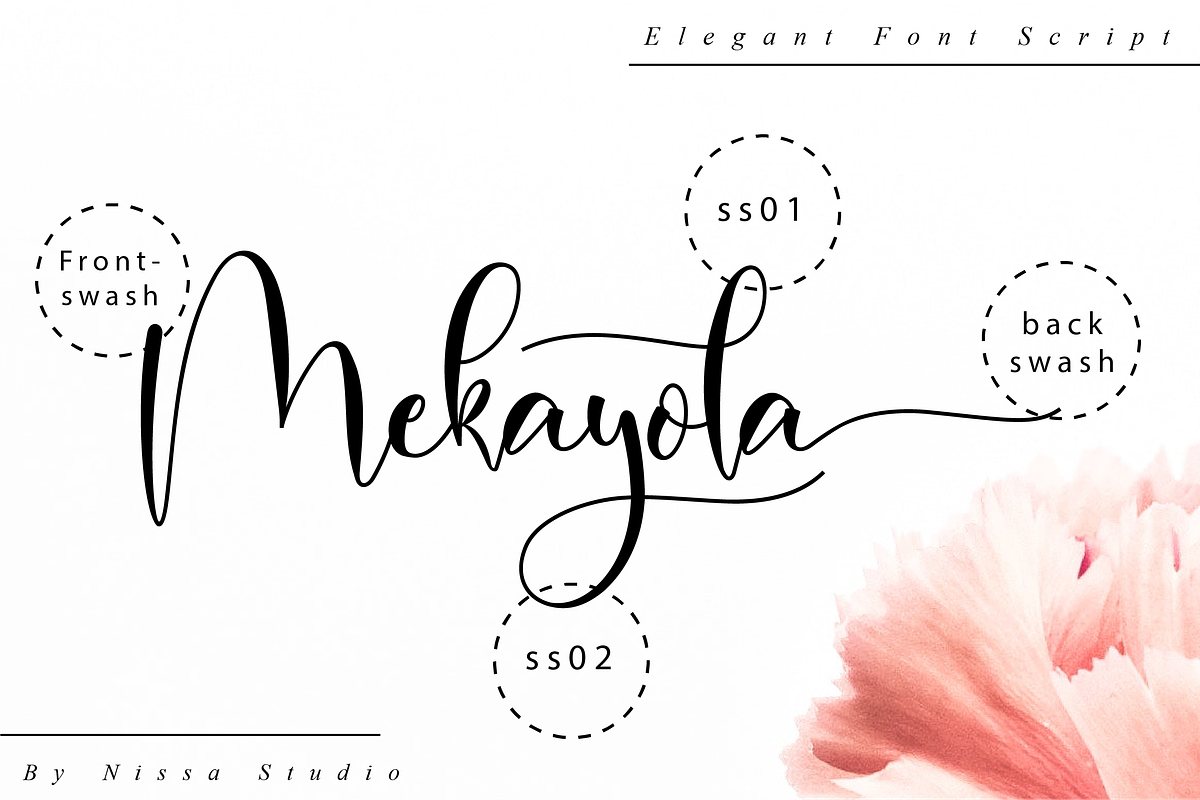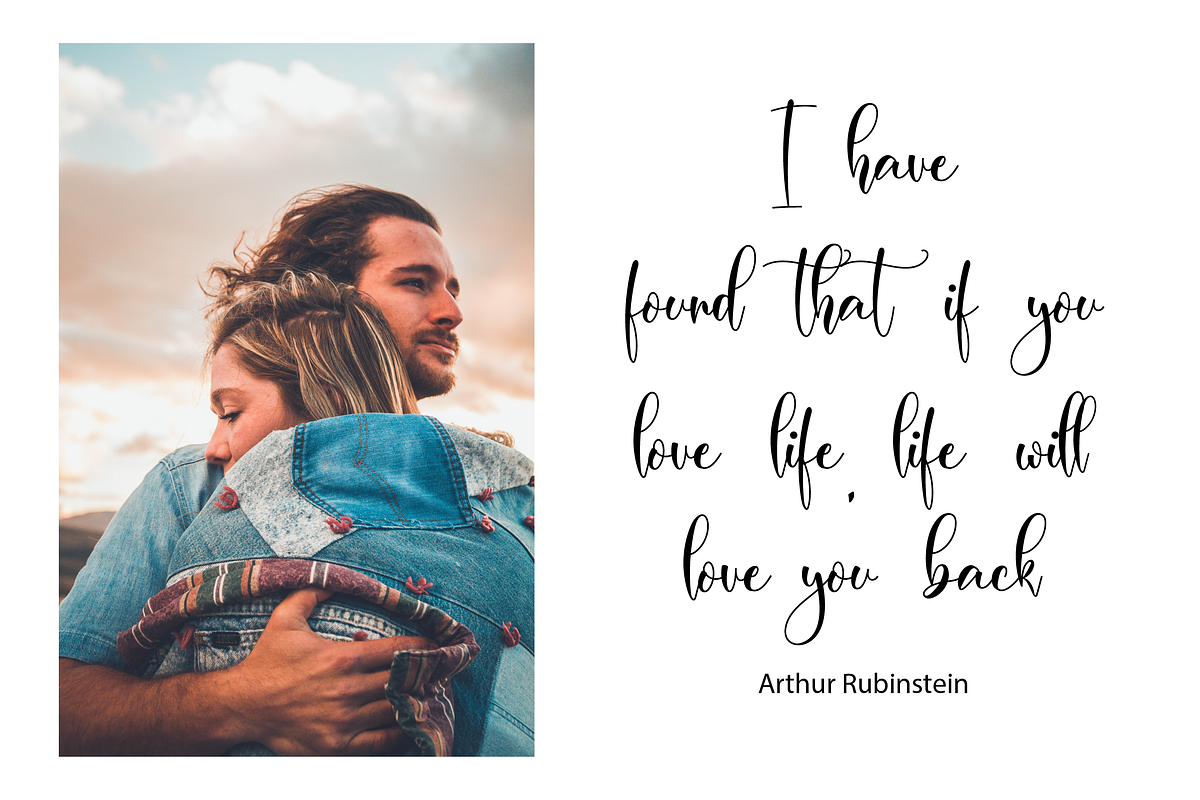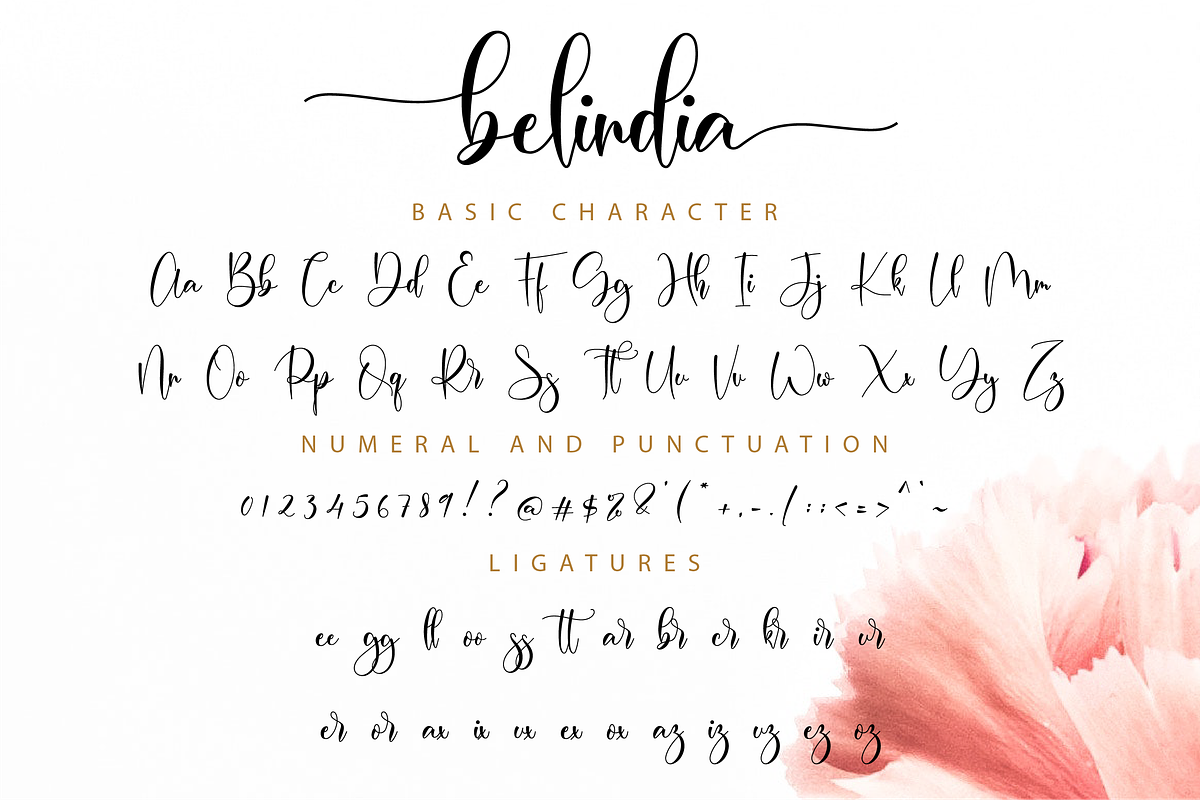
Belindia Script
Belindia is a beautiful and elegant script font. Its modern and classy look are perfect for logos, branding, invitations, social media posts and every other design that needs a handwritten touch.
Each Font Has:
- Modern Handwritten Font
- Beautiful Swash (Ending tail)
- Beautiful Titling (Beginning tail)
- Special Ligatures